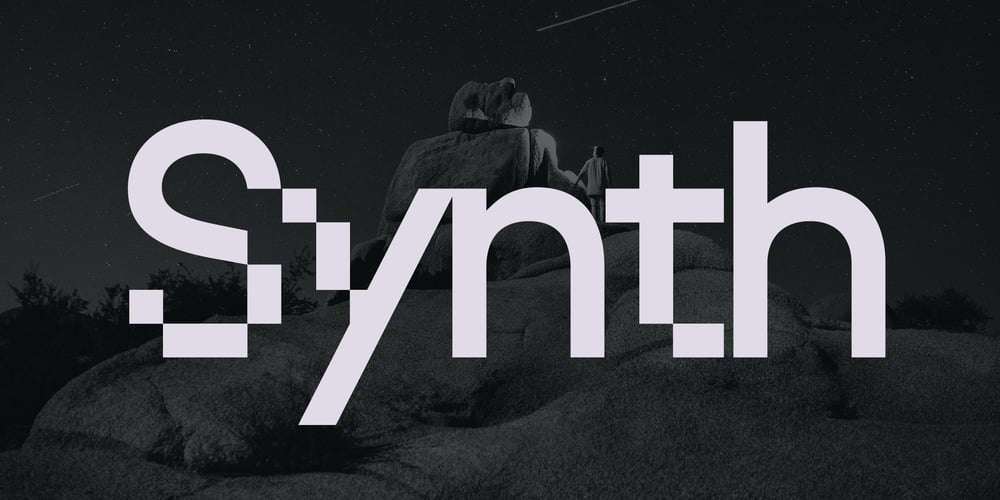
ND Synth Font Family was designed by Wolf Boese and published by NeueDeutsche. ND Synth contains 3 styles and family package options. Each variant of ND Synth includes a comprehensive character set, supporting multiple languages and design requirements. Whether paired with minimalist sans-serifs for contrast or serif fonts for typographic hierarchy, ND Synth adapts effortlessly to diverse design needs.Inspired by the interplay between digital precision and versatile analog aesthetics, ND Synth offers a typographic solution that balances past influences with modern design sensibilities. It caters to designers looking to infuse their projects with a unique and balanced visual appeal.In summary, ND Synth is a sophisticated typeface family designed to elevate design aesthetics across branding, editorial, and digital art. With its range of styles, ND Synth provides the tools to achieve clarity, elegance, and character in every design application.